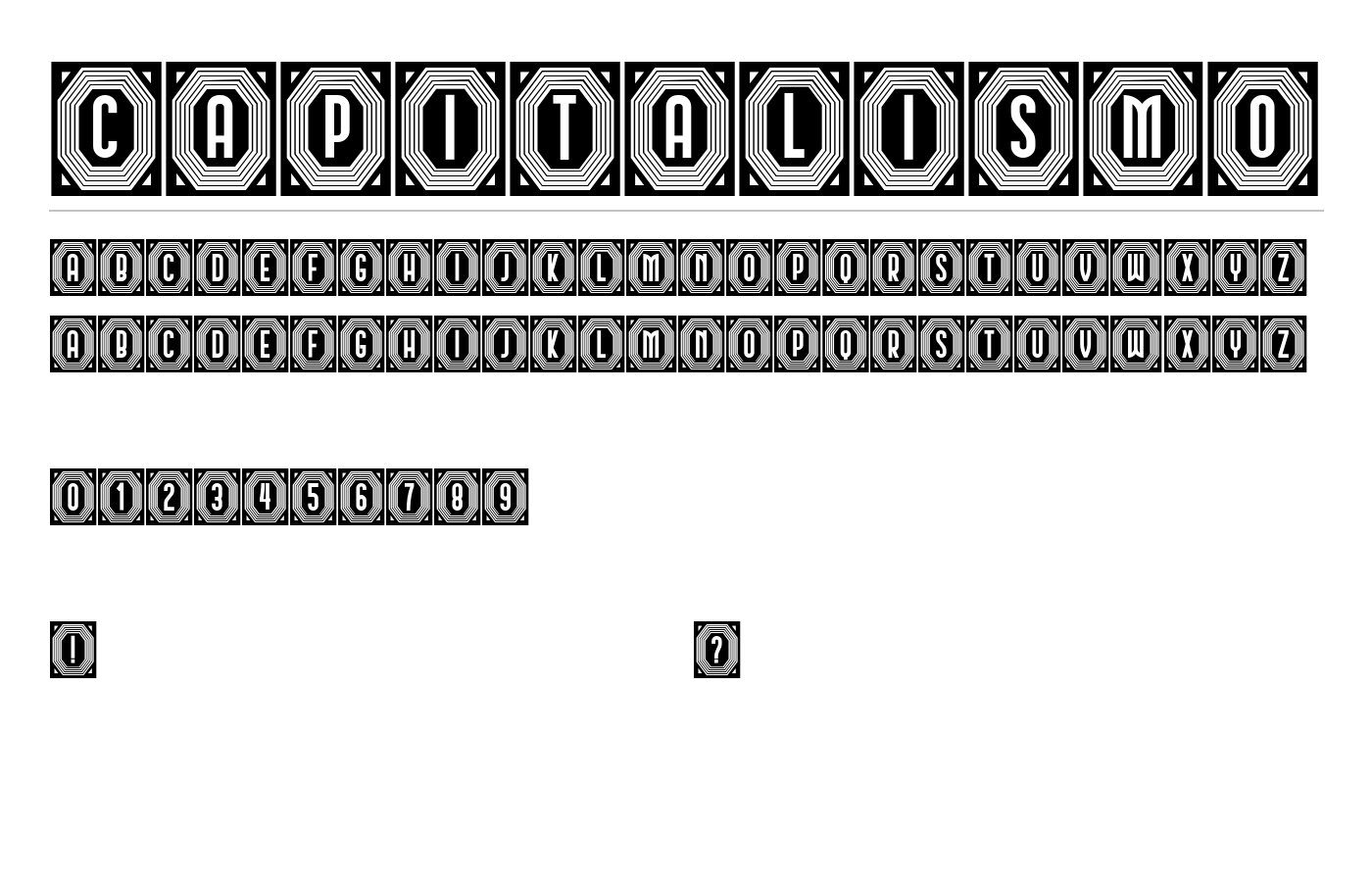
Capitalismo is a bold, geometric display font characterized by its sharp, uppercase letterforms enclosed within layered octagonal frames, creating a striking sense of depth and structure. Its strong lines and condensed shapes give it a modern, industrial feel that works exceptionally well for headlines, logos, and branding projects aiming to communicate strength, confidence, and a contemporary edge. This font is ideal for bold statements where visual impact and a distinctive, architectural style are key.
Capitalismo Font
About Capitalismo Font